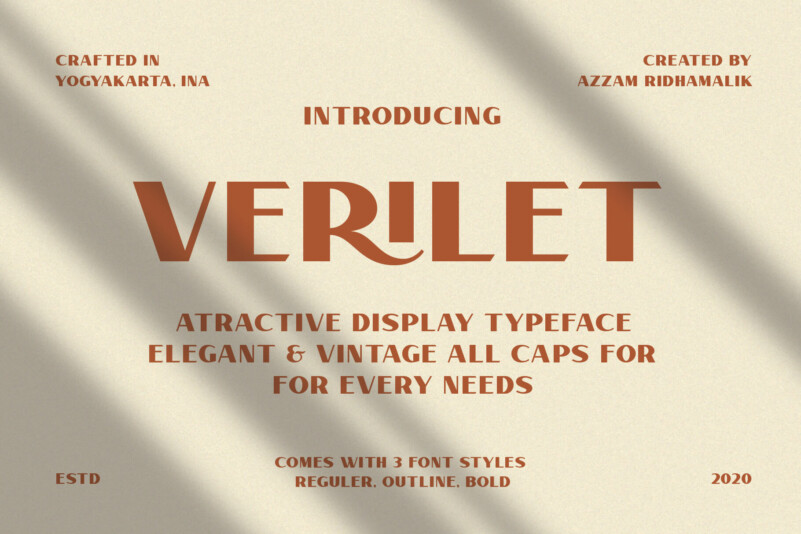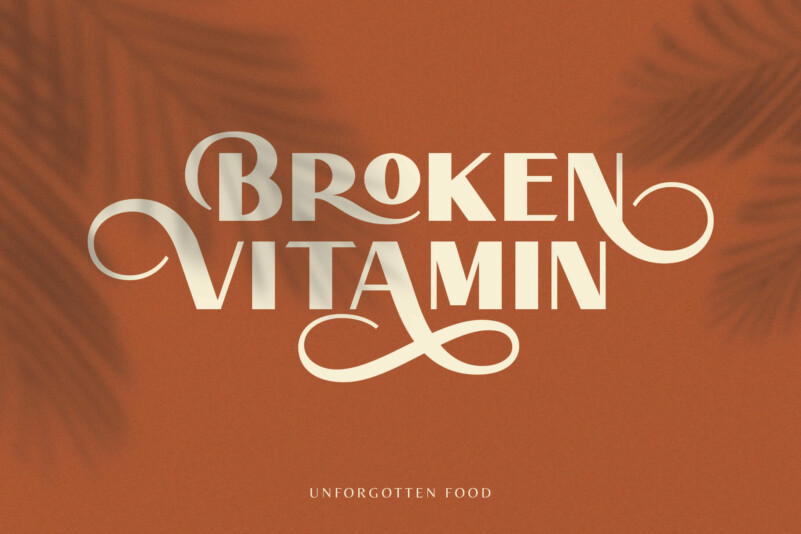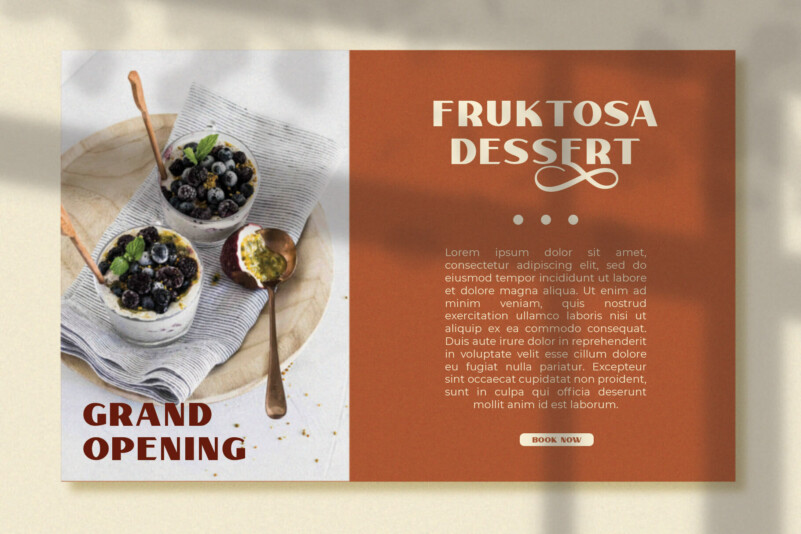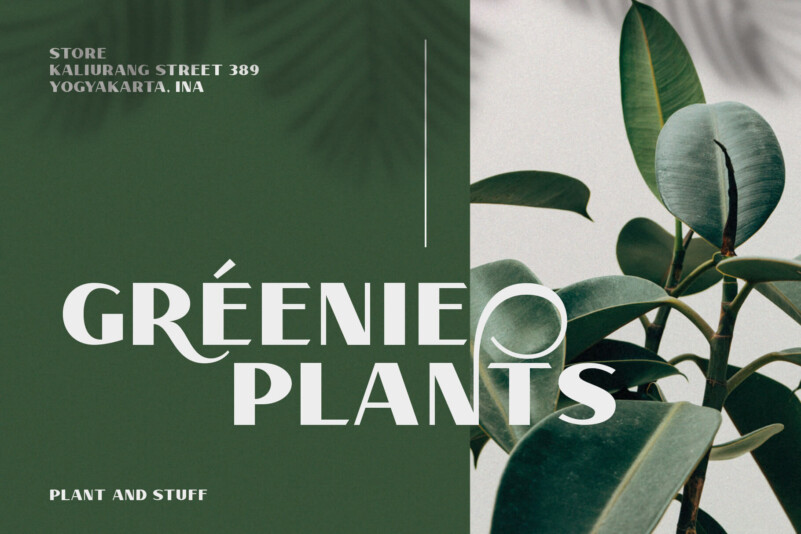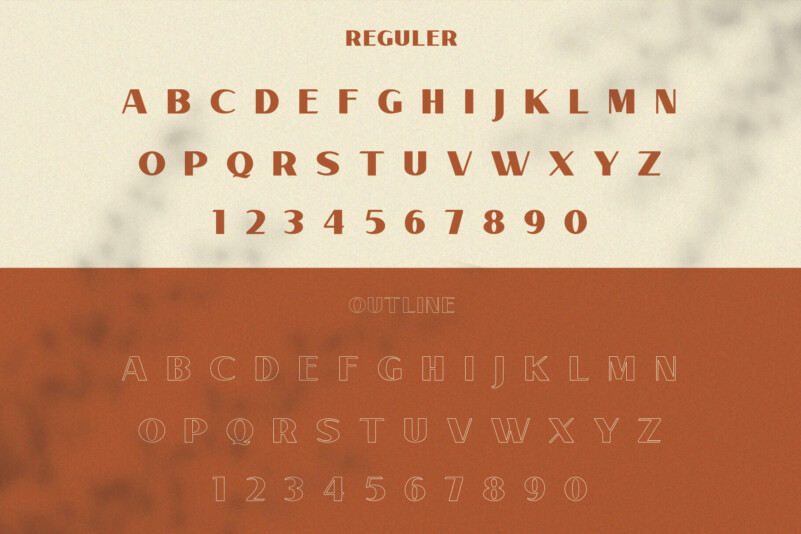
Verilet Font
Verilet Font is elegant and semi-vintage display typeface that looks stunning in just about every context. Very suitable as to make a design choice such as logos, branding, magazines, headlines, websites, packaging, wedding cards and more creative project!